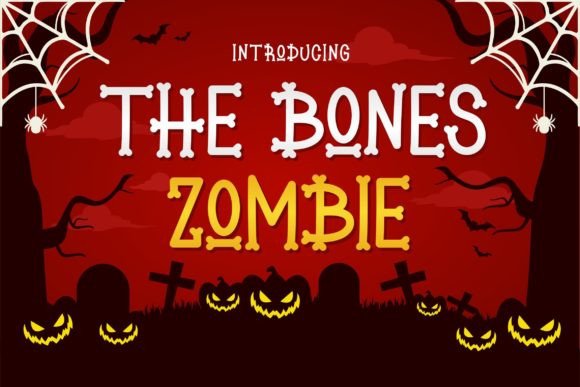
The Bones Zombie Font: Adding a Haunting Touch to Your Halloween Projects
As the spooky season approaches, designers and creatives are on the lookout for the perfect font to add a haunting touch to their Halloween projects. Look no further than The Bones Zombie Font, a creepy and eerie font designed to make your designs unforgettable. In this article, we’ll explore the features and benefits of The Bones Zombie Font, and how it can elevate your Halloween designs to the next level.
What Makes The Bones Zombie Font So Special?
The Bones Zombie Font is a unique and terrifying font that is perfect for creepy posters, eerie invitations, and all your spooky season needs. Here are some of its key features:
- Creepy and Distorted Letters: The Bones Zombie Font features distorted and creepy letters that are sure to send chills down the spine of your audience.
- Perfect for Halloween-themed Designs: The font is specifically designed for Halloween-themed designs, making it perfect for posters, invitations, and other spooky season projects.
- Easily Readable: Despite its creepy appearance, The Bones Zombie Font is easily readable, making it perfect for use in a variety of designs.
- High-quality and Unique: The font is of high quality and is unique, making it stand out from other fonts.
How to Use The Bones Zombie Font in Your Designs
The Bones Zombie Font is a versatile font that can be used in a variety of designs, including:
- Creepy Posters: Use The Bones Zombie Font to create creepy posters for Halloween events, haunted houses, or horror movies.
- Eerie Invitations: Add a haunting touch to your Halloween invitations with The Bones Zombie Font.
- Spine-tingling Social Media Graphics: Use the font to create spooky social media graphics that will leave your followers in awe.
- Scary Logos: Create a scary logo for your business or brand with The Bones Zombie Font.
The Benefits of Using The Bones Zombie Font
Here are some benefits of using The Bones Zombie Font in your designs:
- Adds a Haunting Touch: The font adds a haunting touch to your designs, making them perfect for the spooky season.
- Unique and Memorable: The Bones Zombie Font is unique and memorable, making your designs stand out from the crowd.
- Easily Customizable: The font is easily customizable, allowing you to adjust the size, color, and style to fit your design needs.
- Perfect for Horror-themed Designs: The font is perfect for horror-themed designs, making it a must-have for designers who specialize in horror-themed projects.
Tips for Using The Bones Zombie Font
Here are some tips for using The Bones Zombie Font in your designs:
- Use it Sparingly: Use The Bones Zombie Font sparingly to avoid overwhelming your design.
- Pair it with Other Fonts: Pair The Bones Zombie Font with other fonts to create a unique and interesting design.
- Experiment with Colors: Experiment with different colors to find the perfect combination for your design.
- Keep it Legible: Make sure to keep your design legible, even with the creepy font.
In conclusion, The Bones Zombie Font is a must-have for designers who want to add a haunting touch to their Halloween projects. With its creepy and distorted letters, the font is perfect for creepy posters, eerie invitations, and all your spooky season needs. Get The Bones Zombie Font now and make your designs unforgettable!